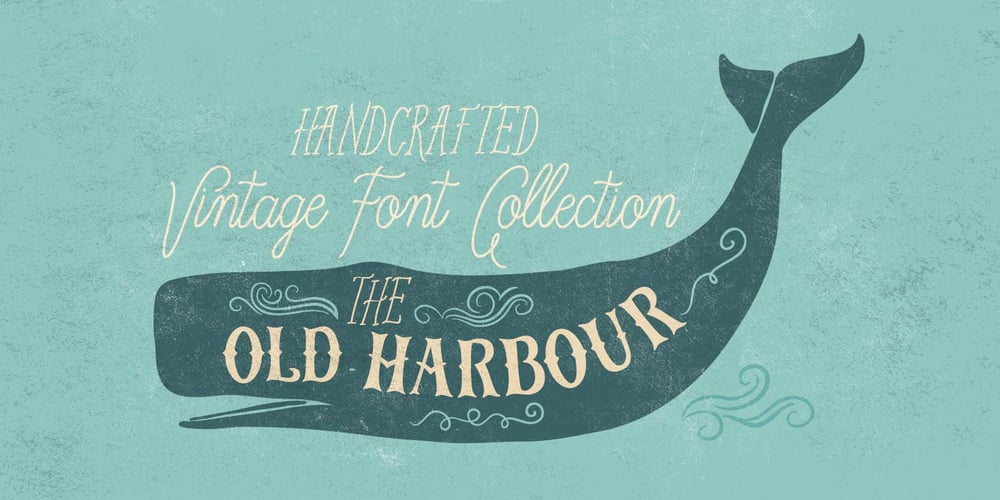
Old Harbour Font Family was designed by Anastasia Dimitriadi and published by DimitriAna. Old Harbour contains 11 styles and family package options. Old Harbour is a font collection of 12 hand drawn fonts inspired by the vintage hand lettered signage, the old bottles’ labels and the aesthetic of my favourite old school tattoos. The fonts can work together in endless combinations, to create beautiful vintage designs for apparel, logos, labels, posters or any merchandise product you can imagine.All the fonts support Western European languages based on Latin script and delivered in OpenType and True Type format.